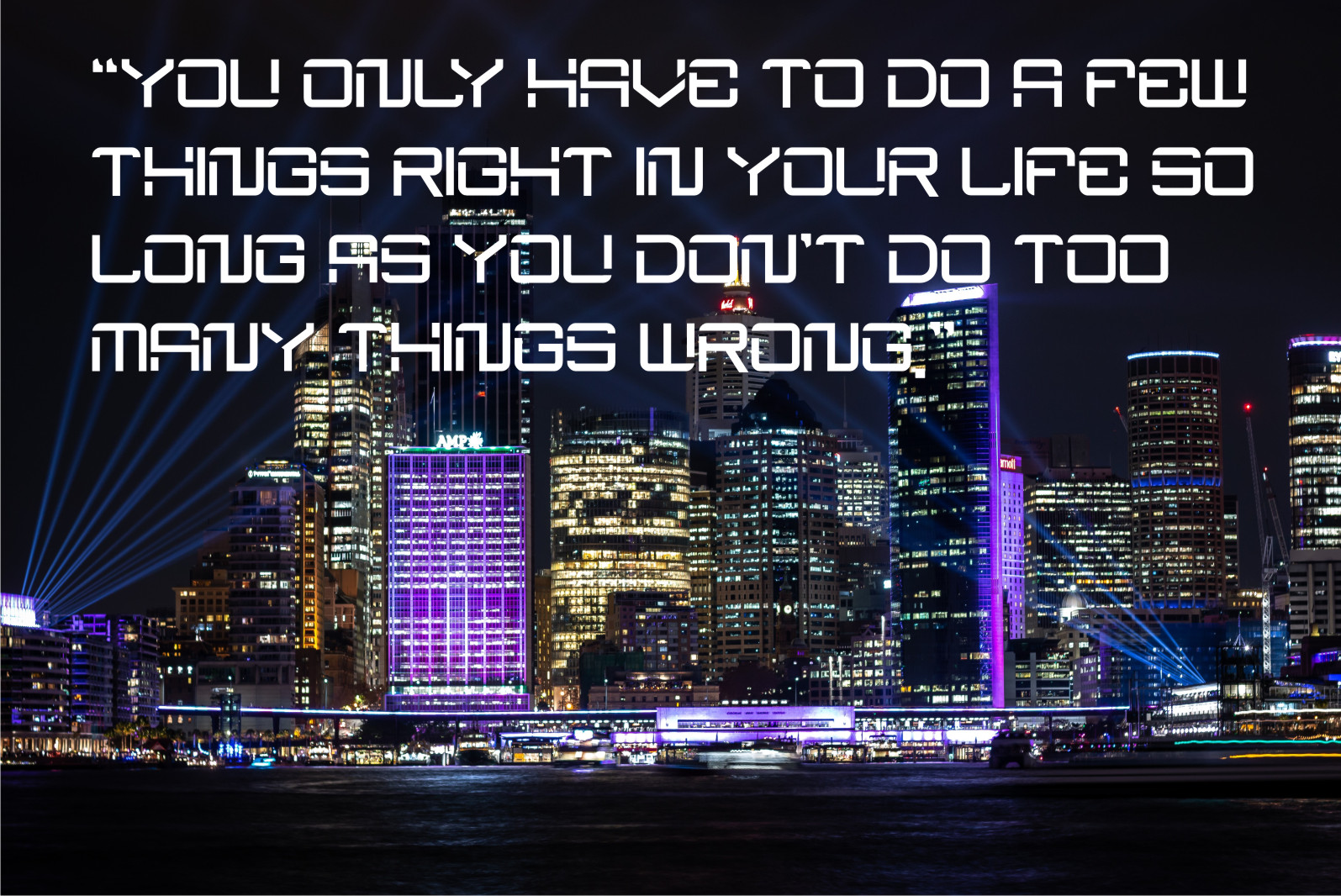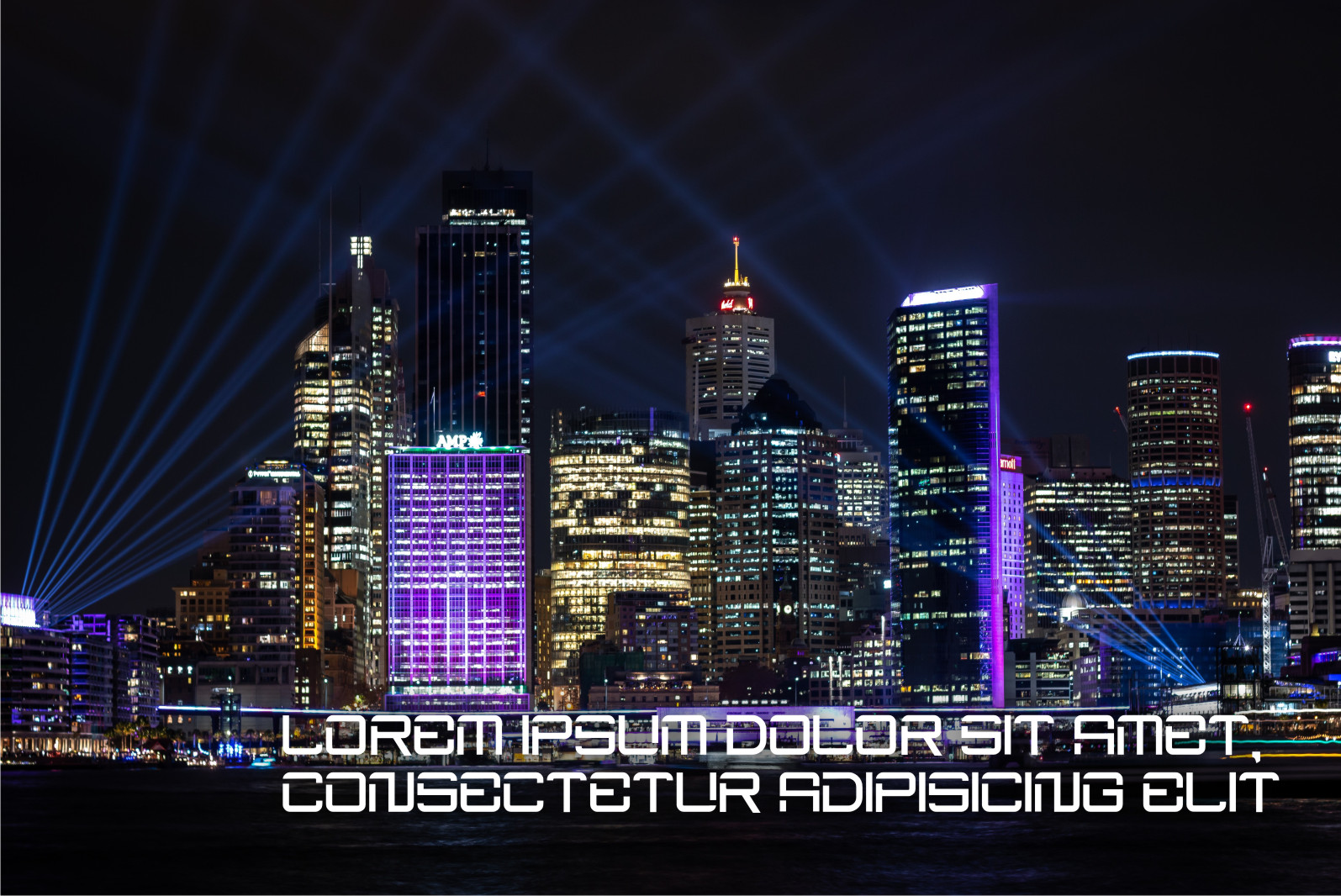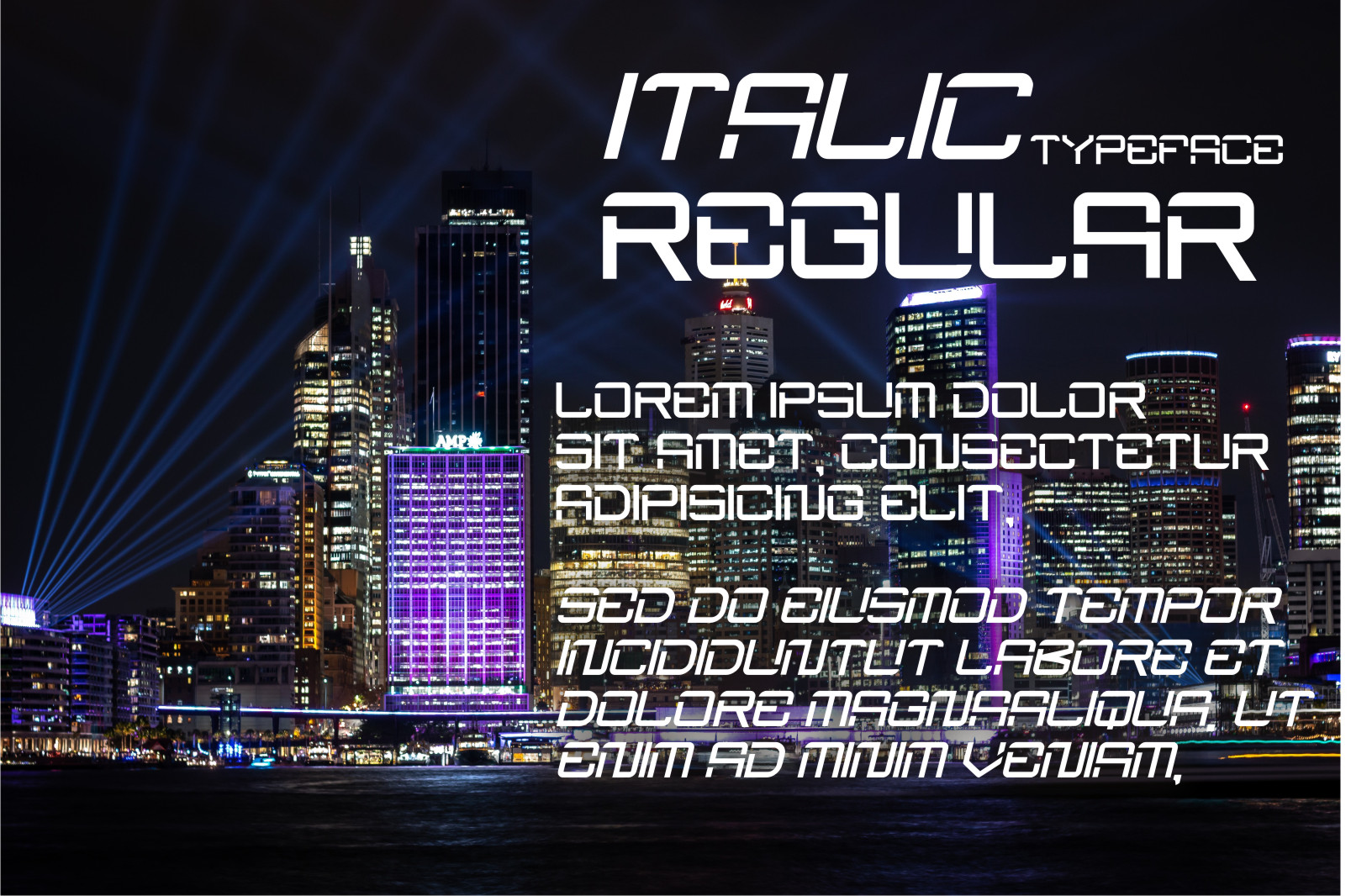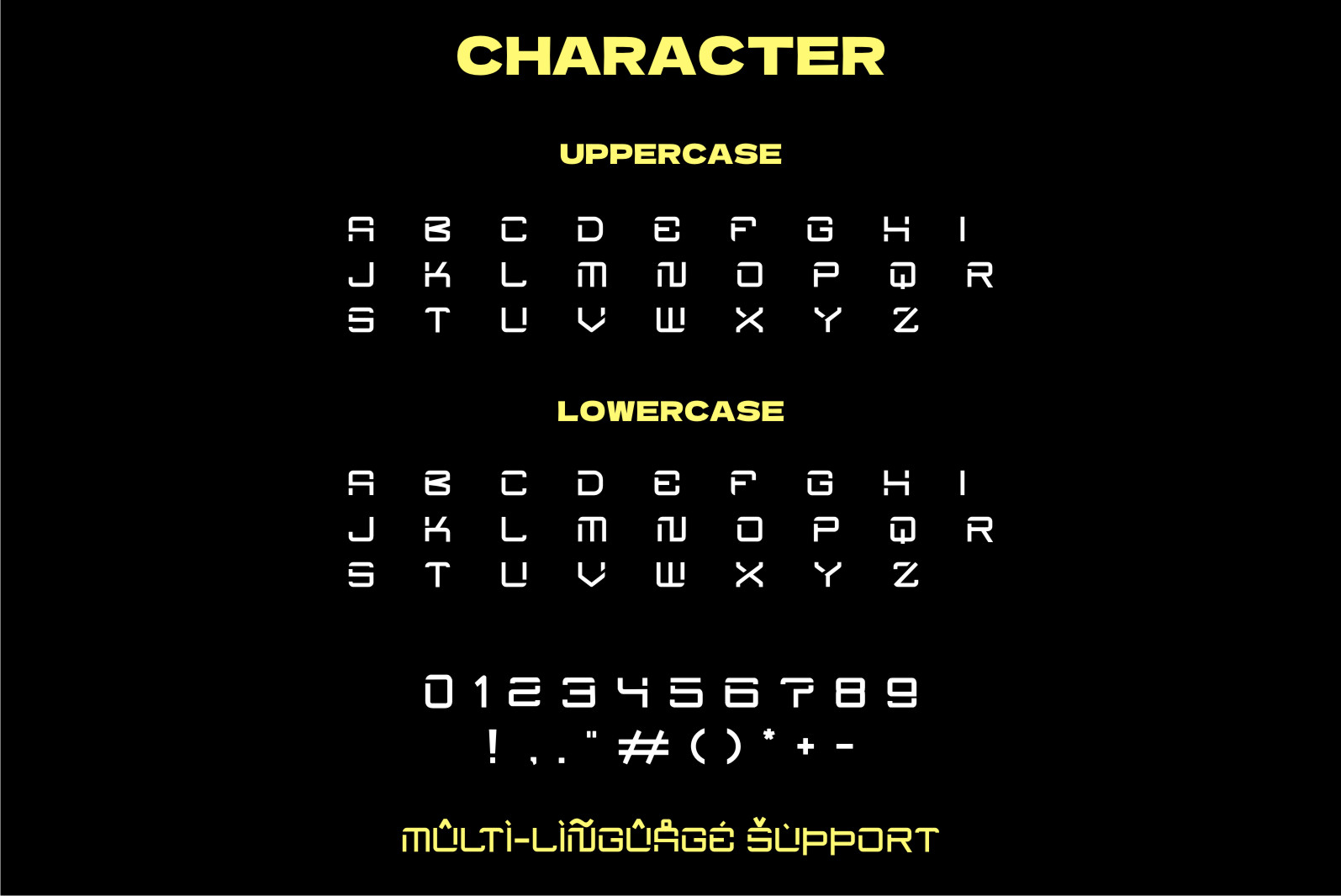
Nager Font
Nager Font is a cool and robotic-styled display font. This font is ideal for writing web designs, business cards, or pretty much anything else that requires a futuristic touch.